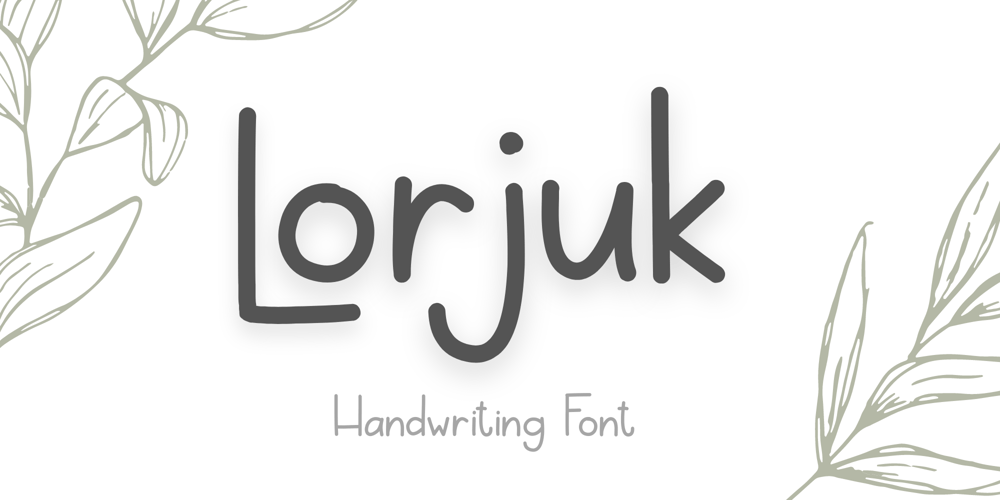
Lorjuk
Lorjuk font
Lorjuk Font Family was designed by Nur Aiysah Amalia and published by Aisyah. Lorjuk contains 1 styles and family package options. Lorjuk is a handwritten font that features a natural and casual style. It has a personal and unique touch, with strokes that mimic the look of hand-written letters. This font is perfect for adding a personal touch to your designs, such as invitations, posters, or social media posts. The font is versatile and can be used for various projects, from informal to more formal ones.